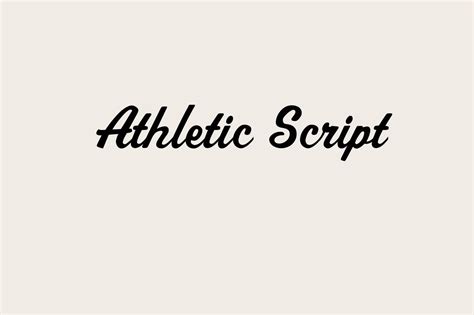
Unlock the Power of Athletic Script Fonts: Make Your Designs Stand Out Now!
What Are Athletic Script Fonts?
Athletic script fonts are a type of font specifically designed for sports and athletic-themed designs. They are meant to represent the energy, enthusiasm, and skill that comes along with participating in sports. Athletic script fonts come in a variety of styles, from bold and aggressive to more playful and whimsical. They are perfect for creating logos, advertisements, and other designs that need to capture the spirit of sport.Why Use Athletic Script Fonts?
Athletic script fonts are a great way to give your design an edge. They are eye-catching and will help your design stand out from the crowd. Additionally, they can help evoke an emotional response from viewers. Whether it be excitement, determination, or pride, athletic script fonts can help you communicate the message you want to get across.Types of Athletic Script Fonts
There are a variety of athletic script fonts available. Some of the most popular include:• Bold and aggressive fonts that capture the intensity of sports.• Playful and whimsical fonts that capture the joy and enthusiasm of sports.• Traditional and classic fonts that capture the history and tradition of sports.How to Unlock the Power of Athletic Script Fonts
When it comes to unlocking the power of athletic script fonts, it’s important to consider how the font will fit into the design as a whole. The font should complement the overall design and help evoke the desired emotion. It’s also important to consider how the font will look when viewed on different devices. Different fonts can look vastly different when viewed on a computer screen compared to a smartphone.Tips for Using Athletic Script Fonts
• Use bold and aggressive fonts for designs that need to capture intensity and power.• Use playful and whimsical fonts for designs that need to evoke joy and enthusiasm.• Use traditional and classic fonts for designs that need to capture the history and tradition of sports.• Consider how the font will look when viewed on different devices.• Experiment with different combinations of fonts to see what works best.Examples of Athletic Script Fonts in Action
Here are some examples of athletic script fonts in action:• A logo for a sports team that uses a bold and aggressive font to capture the intensity of the team.• An advertisement for a running event that uses a playful and whimsical font to capture the joy and enthusiasm of the event.• An invitation to a boxing match that uses a traditional and classic font to capture the history and tradition of the sport.The Benefits of Using Athletic Script Fonts
Athletic script fonts can be a great way to give your design an edge. They are eye-catching and can help evoke an emotional response from viewers. Additionally, they can help convey your message in a more impactful way. Whether it’s excitement, determination, or pride, athletic script fonts can help you capture the spirit of sports.My Point of View
I think that athletic script fonts are a great way to give your design an edge. They can help capture the spirit of sports and evoke an emotional response from viewers. Additionally, they can be used to convey a message in a more impactful way.If you’re looking to make your designs stand out, consider using athletic script fonts. They can help you capture the spirit of sports and create an emotional connection with viewers. With a little experimentation, you can unlock the power of athletic script fonts and make your designs stand out now!Source: CHANNET YOUTUBE Kittl